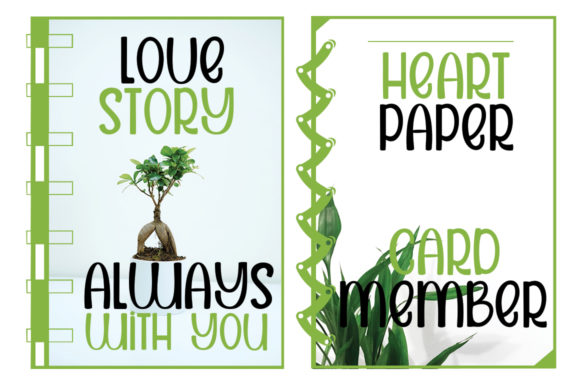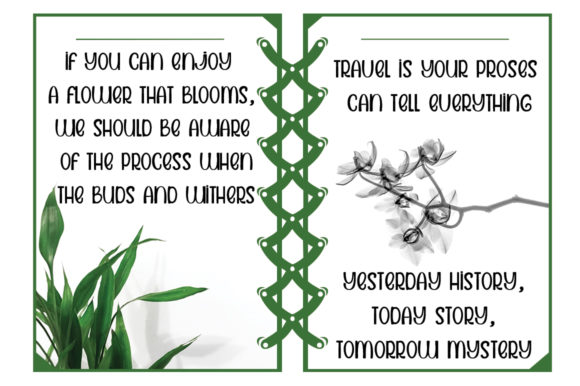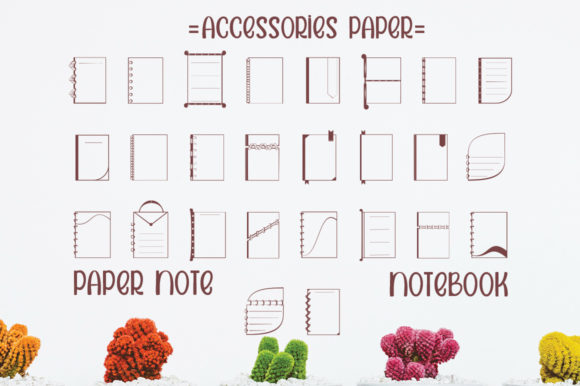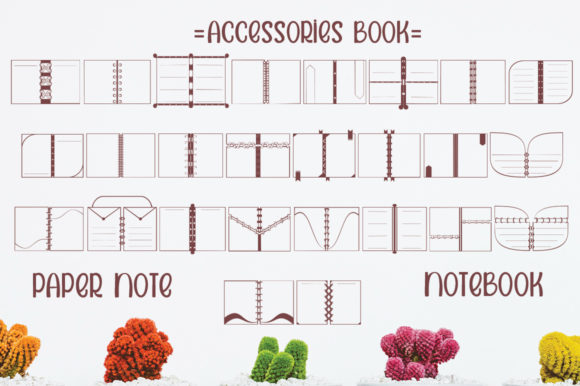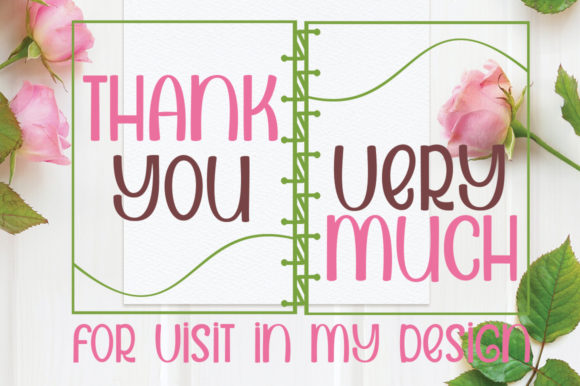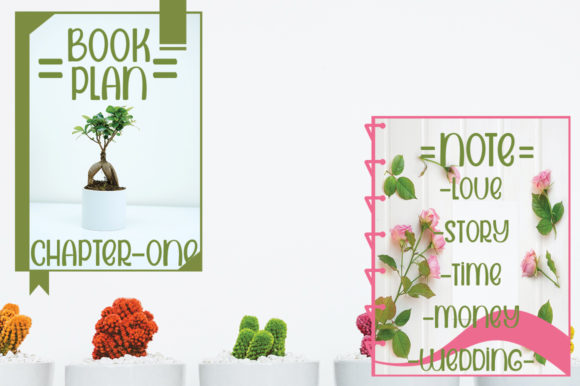
Introduction to Paper Notebook Font
Do you remember the feeling of flipping through a childhood journal, filled with scribbled notes and colorful doodles? The tactile sensation of pen on paper, the joy of creating something from scratch – it’s a feeling that never truly fades. For designers and creatives, this nostalgia can be a powerful spark for inspiration. Whether you’re brainstorming ideas for a new project or simply need a design resource to elevate your social media presence, the right font can make all the difference.
Enter the Paper Notebook Font, a delightful and casual handwritten font that captures the essence of handwritten notes and free-spirited creativity. With its friendly feel and high-quality design, this font is a must-have for any designer looking to add a personal touch to their projects. Plus, with a transparent background, you can easily layer it over your designs for a seamless look.
Key Features of Paper Notebook Font
- High-quality digital font designed to resemble handwritten notes, perfect for creative projects and design resources.
- Unique characteristics include subtle texture and imperfections, mimicking the look of handwritten notes in a paper notebook.
Honest Review: Paper Notebook Font
As a designer, I’m always on the lookout for high-quality design resources to elevate my creative projects. I recently had the chance to try out the Paper Notebook Font, and I’m excited to share my honest review.
- ✨ The Paper Notebook Font is incredibly versatile and can be used for a wide range of design projects, from digital to print.
- ⚠️ The font may not be suitable for all design projects, particularly those requiring a more modern or sleek aesthetic.
- ⚠️ The font may require some adjustments to achieve the desired look and feel.
Overall, I’m impressed with the Paper Notebook Font’s potential and versatility. While it may have some limitations, it’s a great addition to any designer’s toolkit, especially for those working on creative projects that require a more rustic or vintage feel.
Experiment with different font sizes, colors, and combinations to achieve a unique look. Use the font in conjunction with other design elements, such as graphics and images, to create visually appealing designs.
The Paper Notebook Font is ideal for creating a vintage or rustic look in your designs. Use it to create invitations, journals, and other creative projects that require a unique and personal touch.